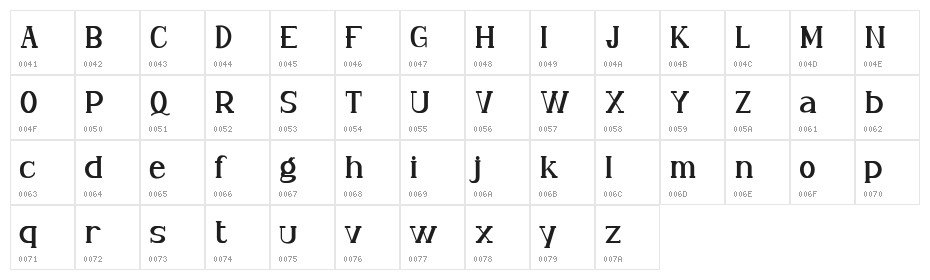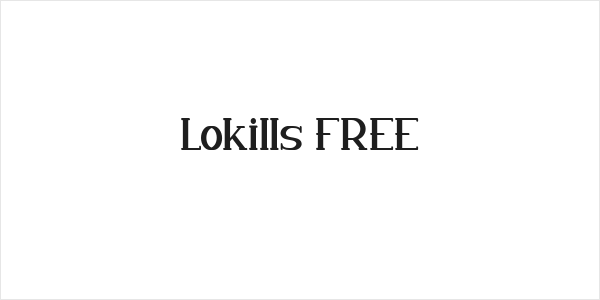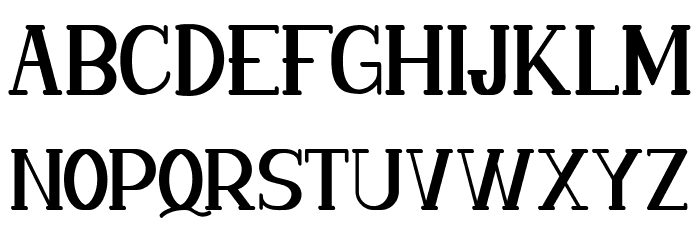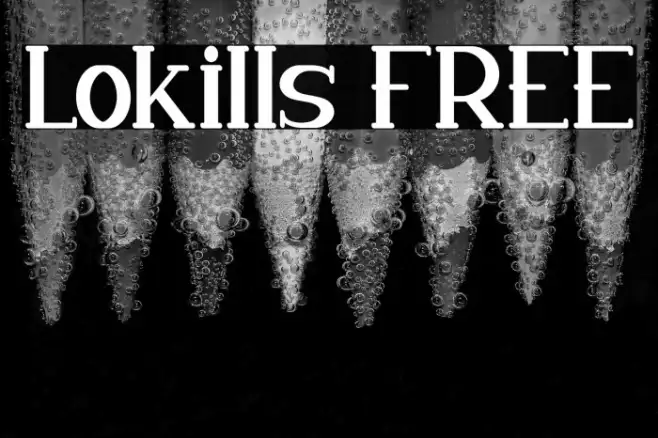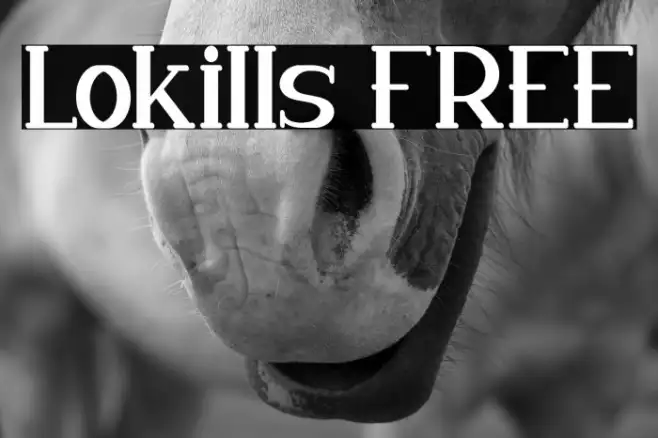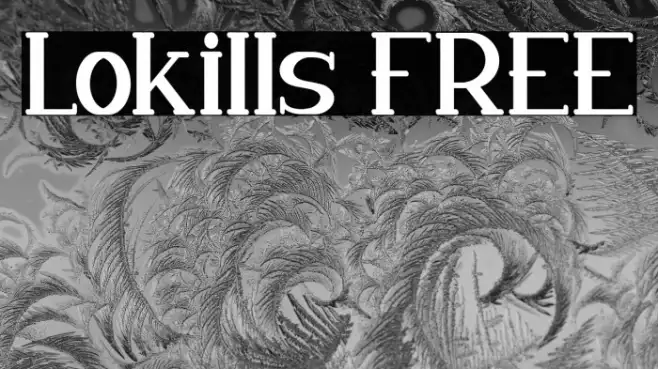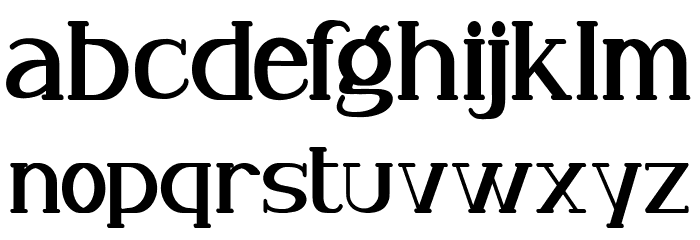
Lokills FREE Font
Lokills FREE Description
This font features a classic serif style with elegant curves and a strong presence. The uppercase letters are bold and commanding, while the lowercase letters maintain a consistent flow with subtle serifs that enhance readability. The numerals are well-proportioned, aligning seamlessly with the overall design. Special characters like $?&%!#*= are crafted with attention to detail, ensuring they complement the alphabetic characters. The font's design is suitable for both traditional and modern applications, offering versatility in various contexts.
| Proposed Projects | Ideal for editorial design, book covers, formal invitations, and branding projects that require a touch of elegance and tradition. |